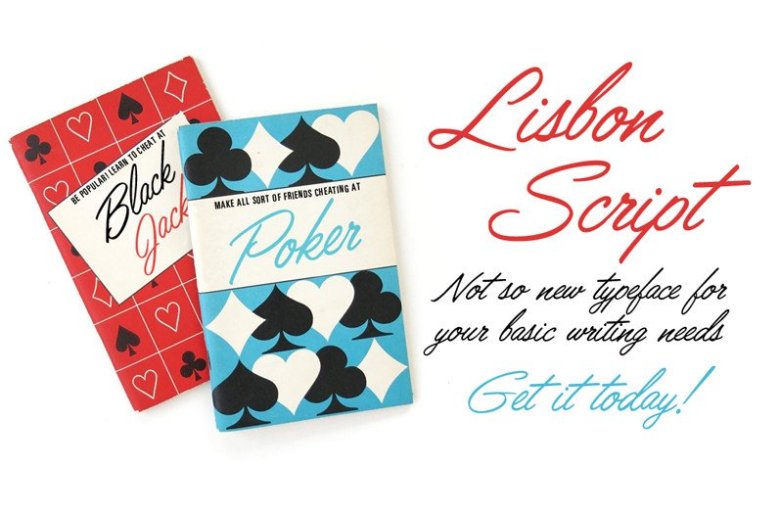
Lisbon Script Font
A beautiful handwriting. Introducing Lisbon Script Font!. Lisbon was designed and shares by Mario Arturo. This 1940/50’s font is traced from the 1993 edition of Novum Press book Schreibschriften/Script Types, compiled by Michael Rau & Rosemarie Kloos-Rau. I did add the punctuation marks for the book only had letters and numbers.